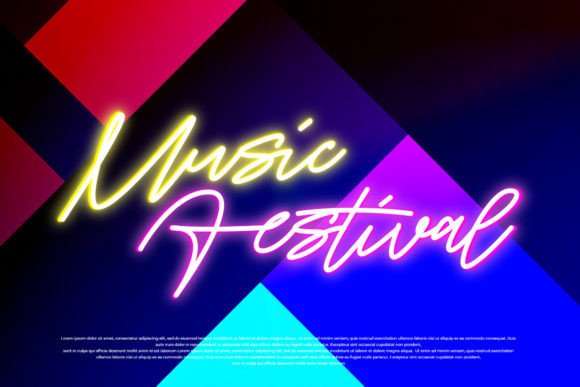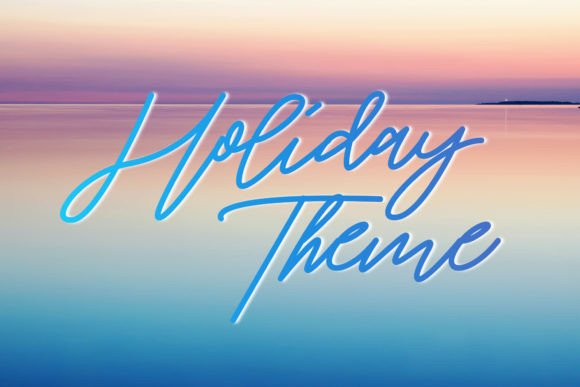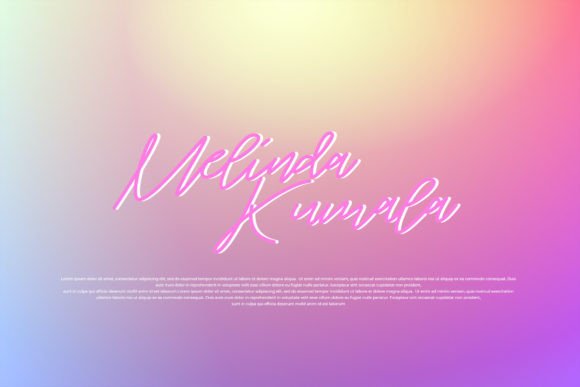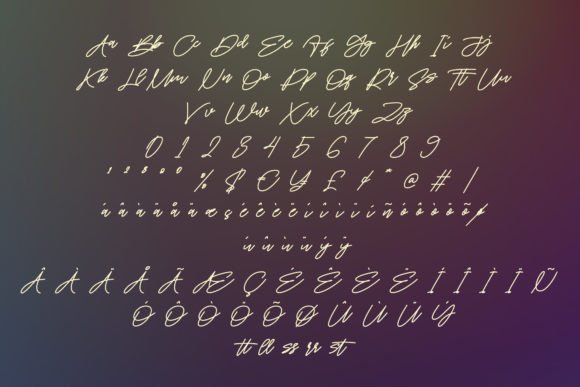
The Perfect Script for Your Next Creative Project
Have you ever stared at a blank canvas, trying to come up with the perfect font to bring your design to life? You’re not alone. Many designers face this challenge every day, but what if we told you that there’s a solution that’s been hiding in plain sight?
Meet the Emonilla Font, a beautiful script font that comes with a monoline brush, perfect for creating eye-catching posters, t-shirts, and social media graphics. This versatile font is also equipped with standard English letters, numbers, punctuation, and several accents that support multilingualism, making it a valuable asset for designers who work with clients from diverse backgrounds.
With the Emonilla Font, you can take your designs to the next level and make a lasting impression on your audience. Whether you’re working on a project for Adobe Family, Affinity, or Microsoft Word, this font is sure to deliver.
Emonilla Font Key Features
- Font Size: The font family consists of 4 different font weights, ranging from Light to Bold, with corresponding font sizes to suit various design needs.
- Resolution: Emonilla Font is designed to be highly legible at various resolutions, including standard screen resolutions (72-144 dpi) and high-resolution printing (300 dpi).
- Unique Characteristics: The font features a unique, hand-drawn style with subtle imperfections, giving it a personal and artistic feel, perfect for creative projects and branding.
- Language Support: Emonilla Font supports a wide range of languages, including Latin, Cyrillic, and Greek alphabets, making it suitable for multilingual designs and publications.
- Font Metrics: The font has been carefully crafted to ensure precise font metrics, including x-height, cap height, and baseline, for optimal readability and typesetting.
Emonilla Font Review
I recently had the chance to work with the Emonilla font, and I must say it’s a unique and interesting addition to any design project. ✨ The first thing that caught my attention was its cursive script style, which makes it perfect for creating a more elegant and sophisticated look. ✨ The font is also highly customizable, with a wide range of weights and styles available, making it easy to achieve the desired look and feel for your project.
One of the things that I appreciate about Emonilla is its versatility. It can be used for both personal and commercial projects, and it’s suitable for a variety of applications, from logos and branding to body text and headings. ✨ The font is also highly legible, making it easy to read, even at smaller font sizes.
- ⚠️ The font may not be suitable for projects that require a more modern or bold look, as it has a more classic and elegant feel.
- ⚠️ Some users may find the font to be too ornate or decorative, which can make it difficult to read in certain contexts.
Overall, I would say that Emonilla is a solid choice for designers looking for a high-quality, elegant font. While it may have some limitations, it’s definitely worth considering for projects that require a more sophisticated and refined look.
Emonilla Font Practical Application Guide
Tips: Use Emonilla Font for headings and titles to add a touch of elegance to your designs. Experiment with different font sizes and colors to create visual hierarchy.
Tips: Use Emonilla Font for creative projects such as infographics, posters, and flyers. Experiment with layer blending modes and opacity to add depth and interest.
Tips: Use Emonilla Font for presentations and reports to add a touch of sophistication. Experiment with different font sizes and colors to create visual hierarchy.
Emonilla Font is ideal for creative projects, presentations, and reports that require a touch of elegance and sophistication. Use it for headings, titles, and body text to add visual interest and create a cohesive design.